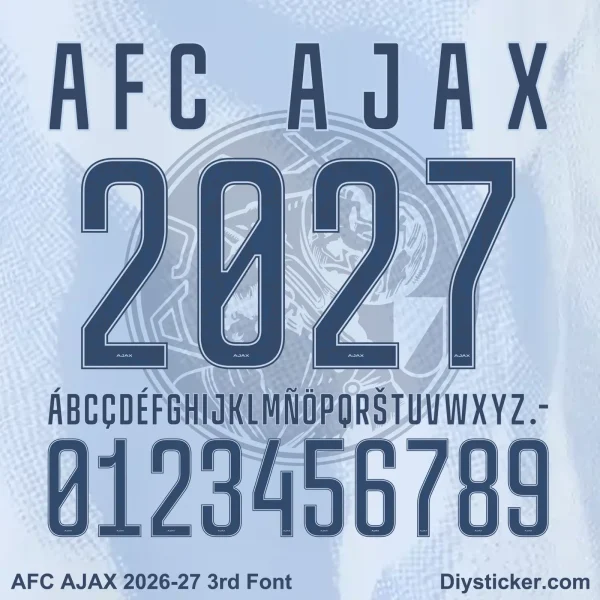
AFC Ajax 2026-27 Third Font & Numbers Vector Pack
Elevate your sports design projects with the exclusive AFC Ajax 2026-27 Third Font Download. This comprehensive digital pack is meticulously crafted to match the official typography used by Ajax Amsterdam for their 2026/27 third jersey.
Complete Character Set: Includes A-Z uppercase letters, special accents (Á, Ç, Ñ, etc.), and numbers 0-9 with the integrated AFC Ajax club crest.
Authentic Design: 1:1 replica of the 2026-27 season’s third kit style.